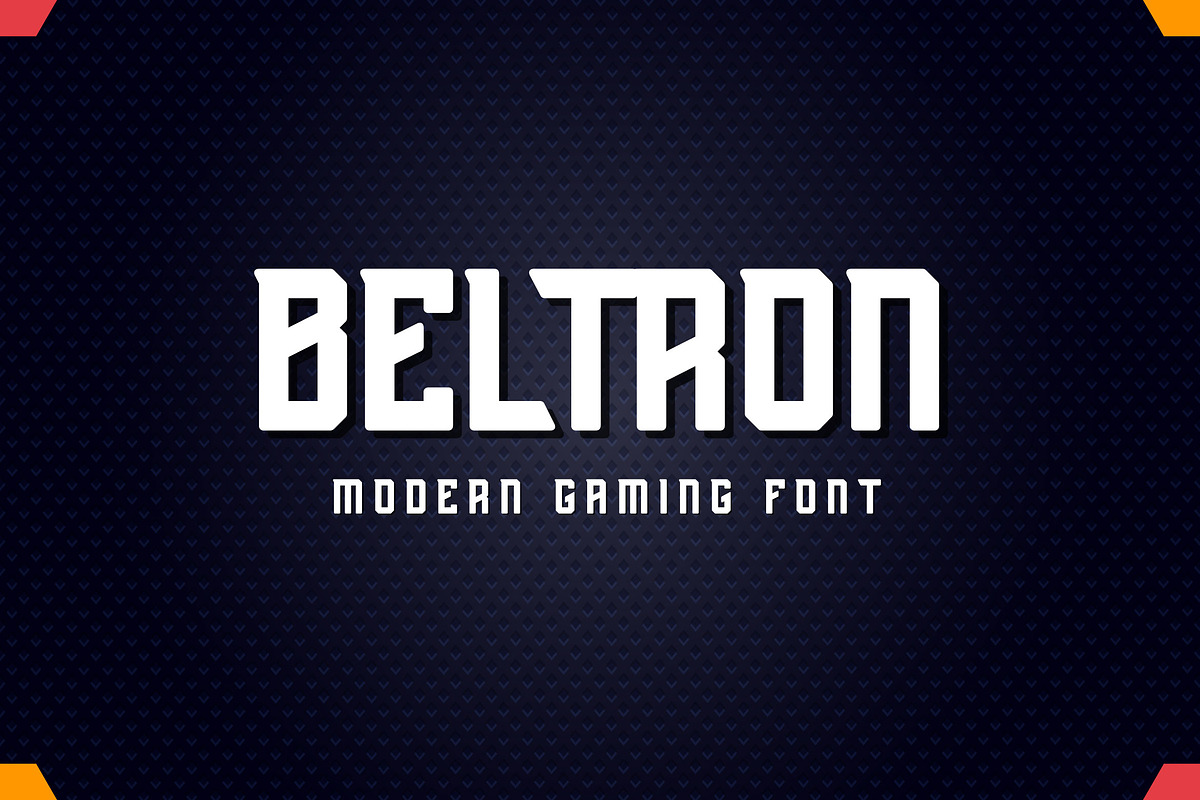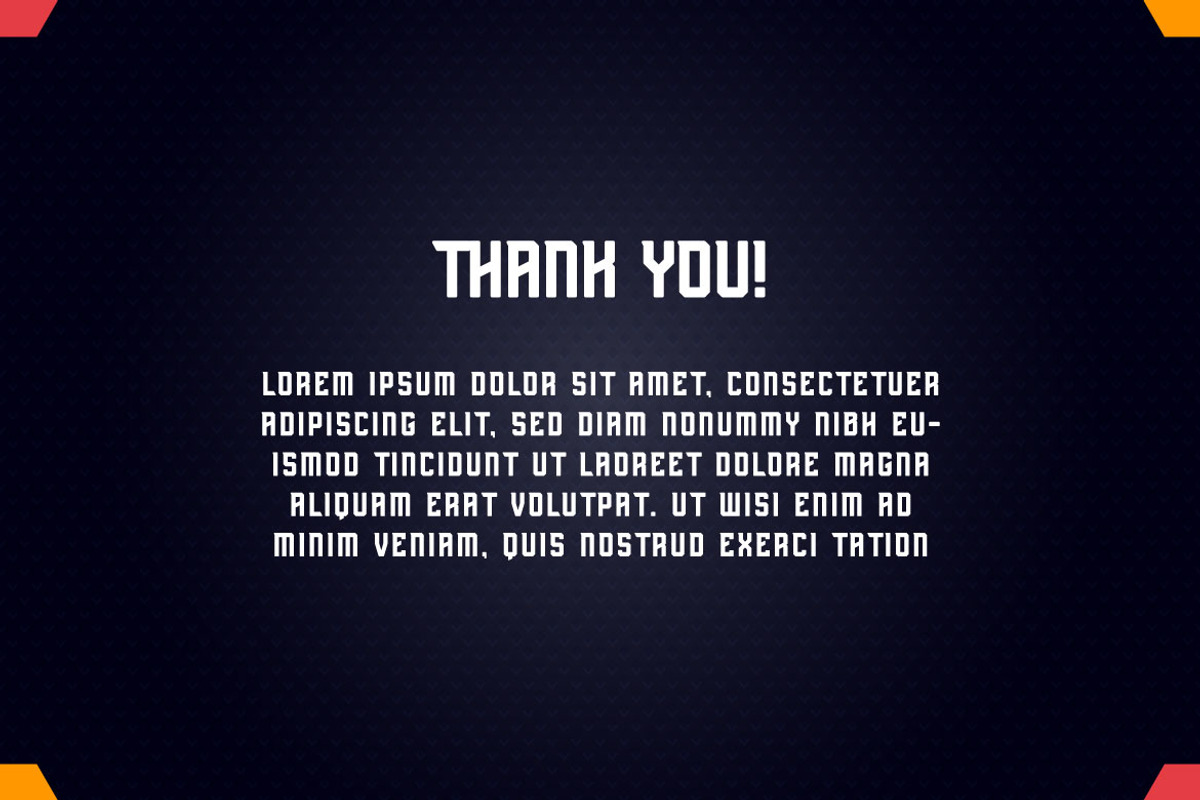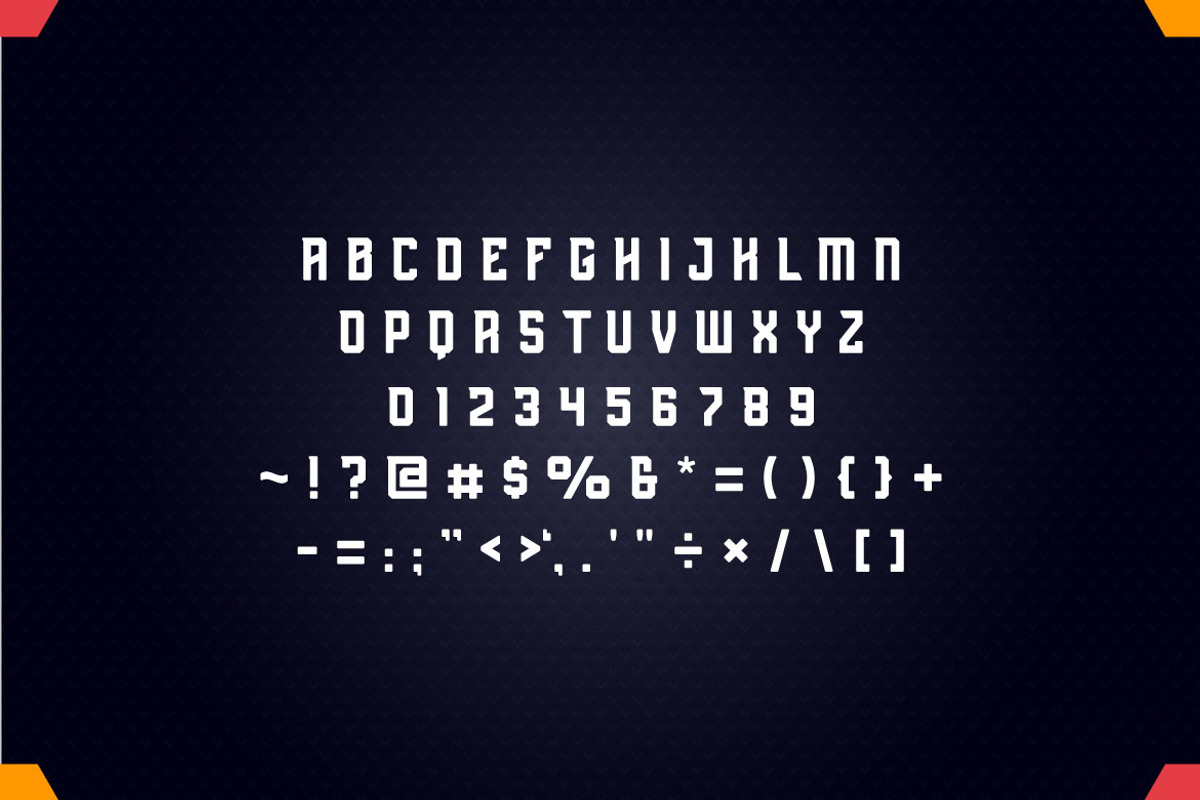
Beltron - Modern Gaming Font
If you are looking for a modern display font, meet Beltron
Beltron is perfect for any works, such as sport and esport logo and content card, book title, headline of news, banner, flyer, stationery and many more. It also can be used in any size work.